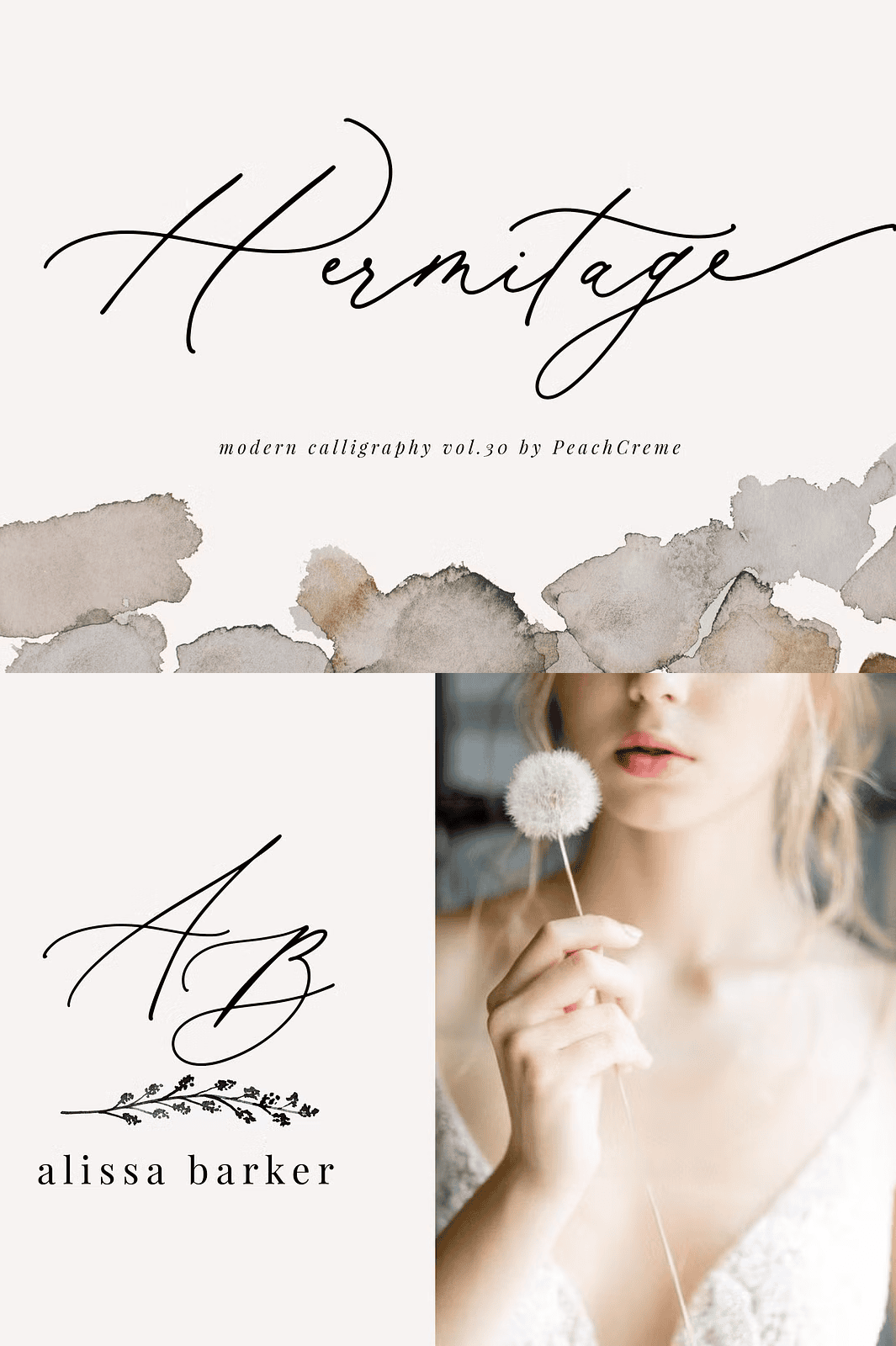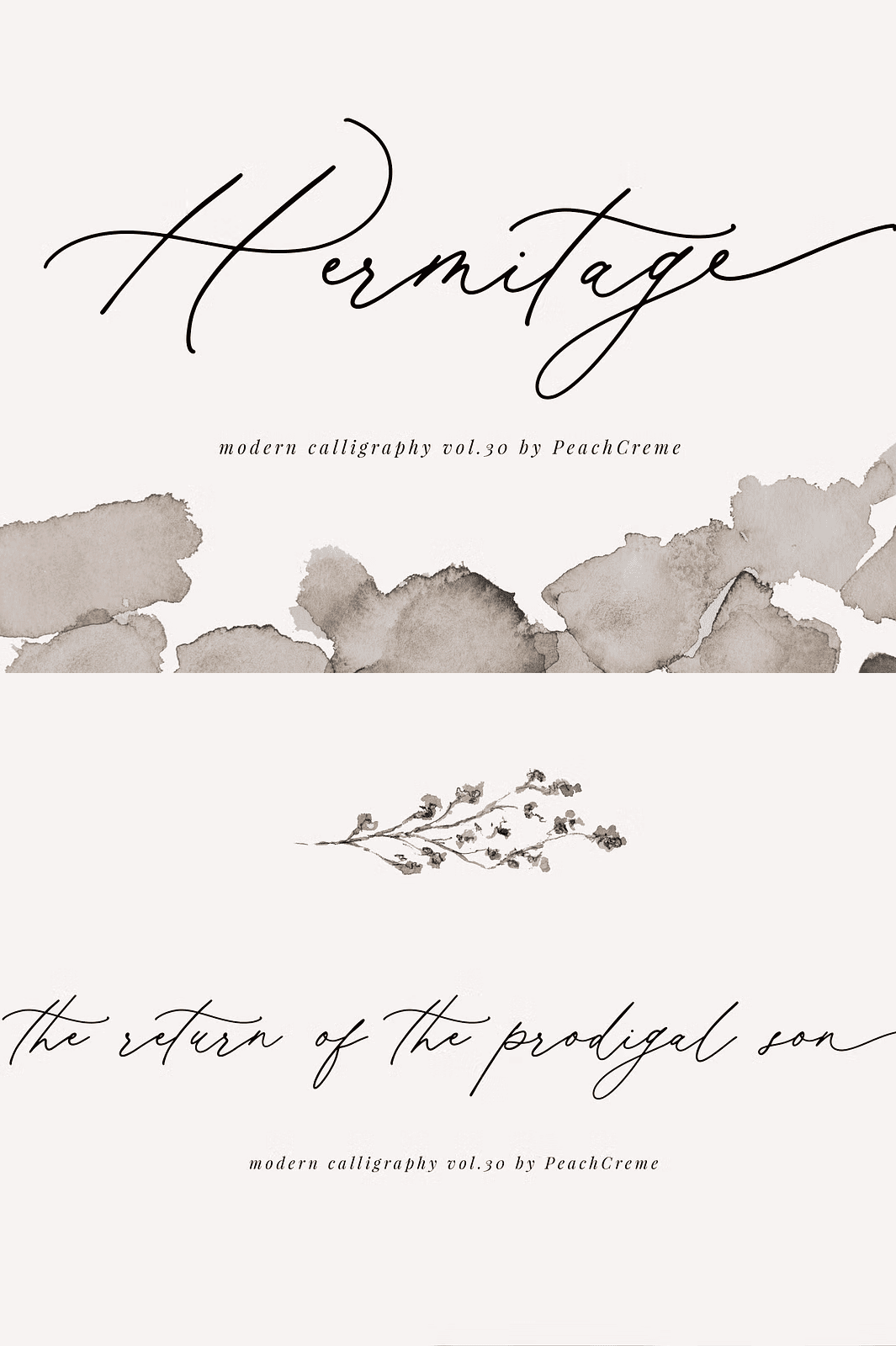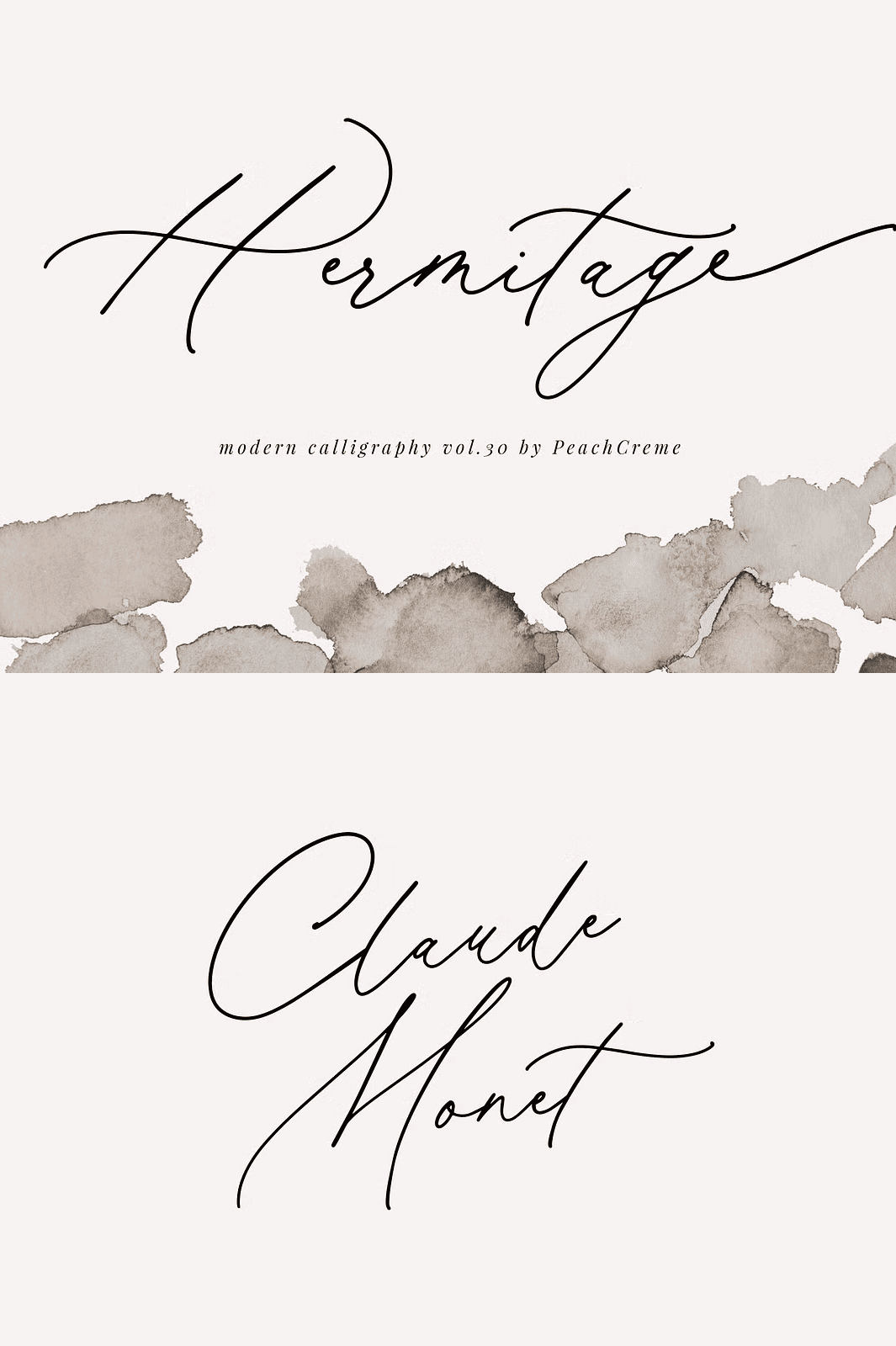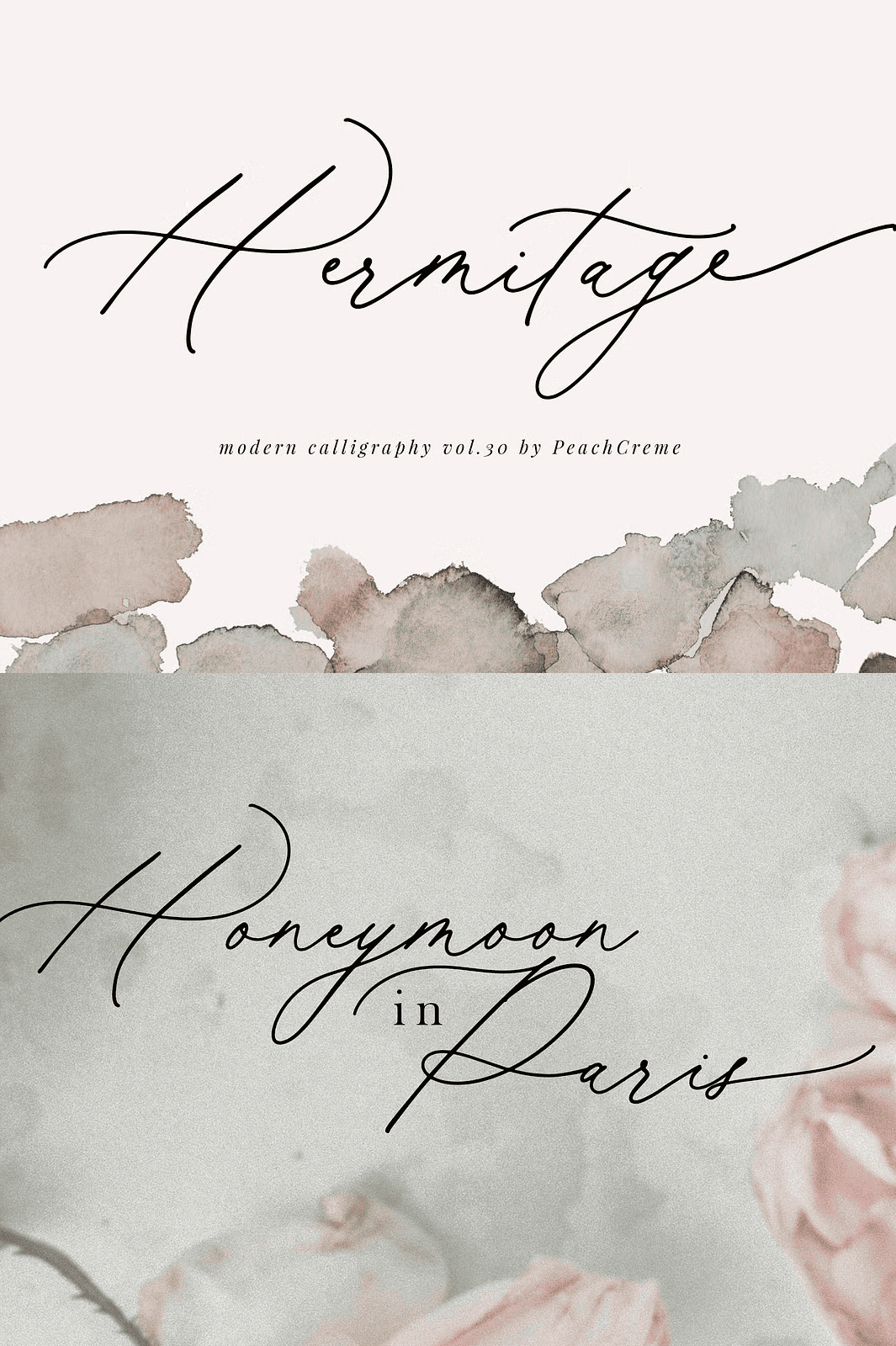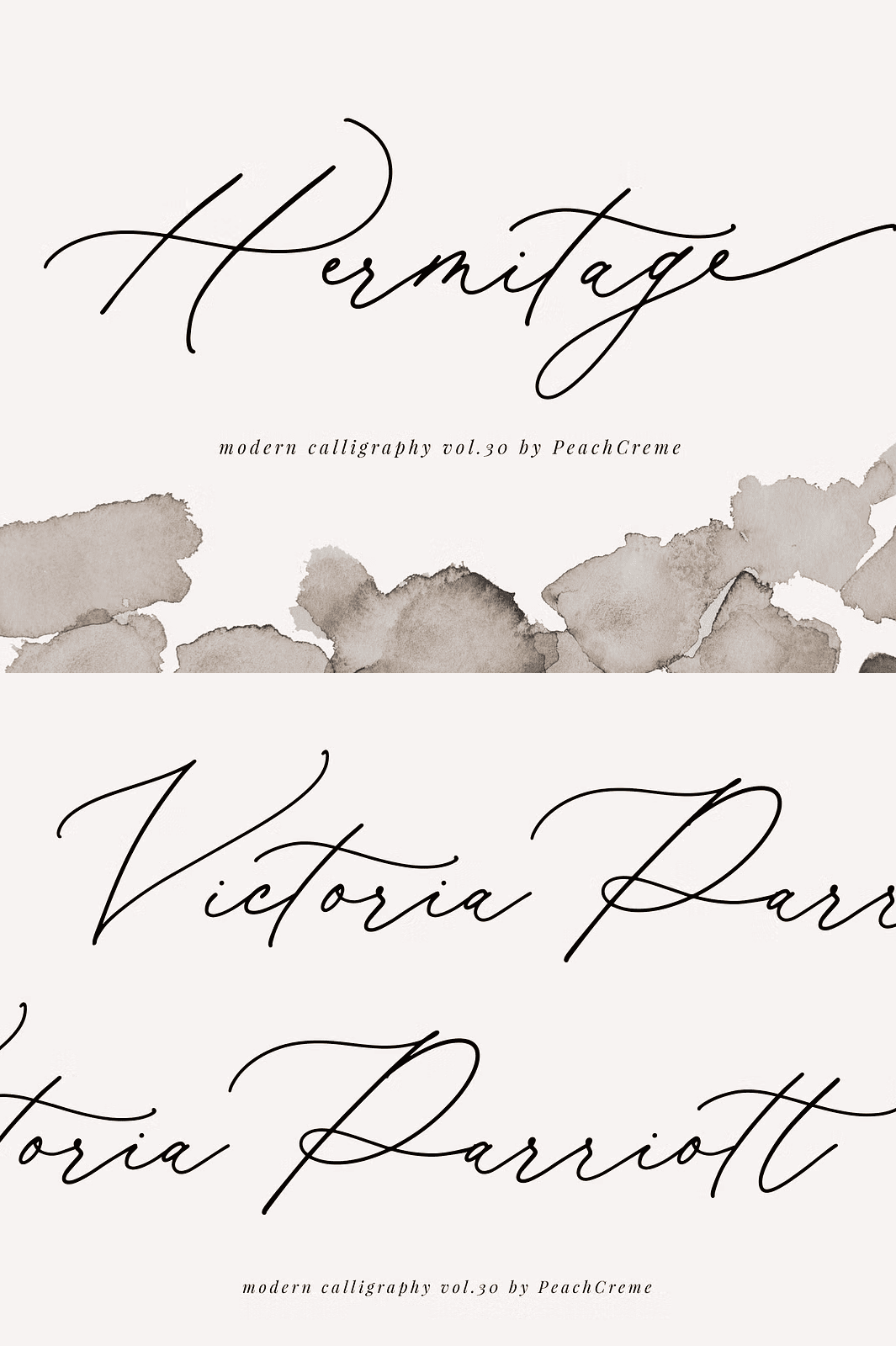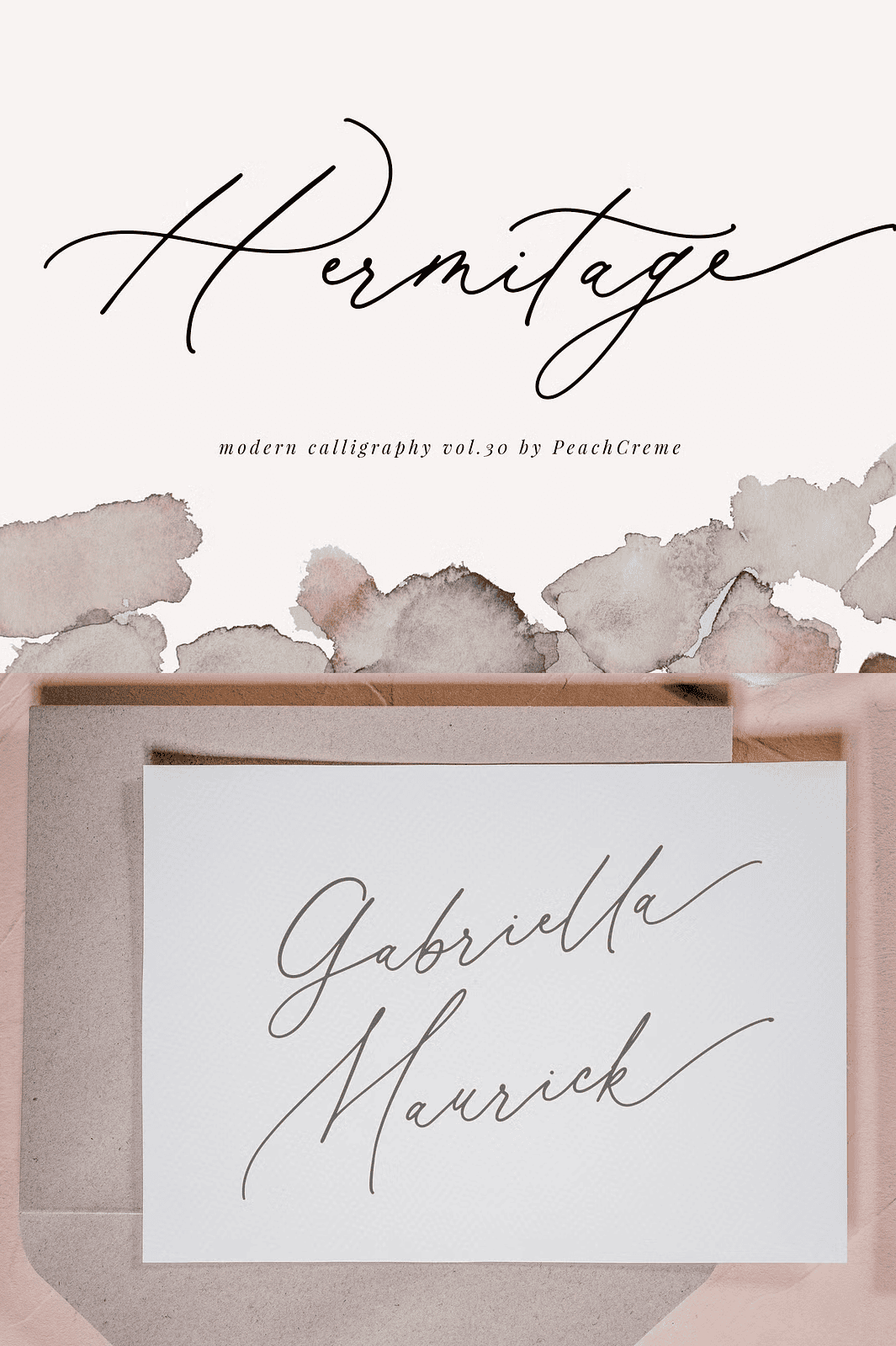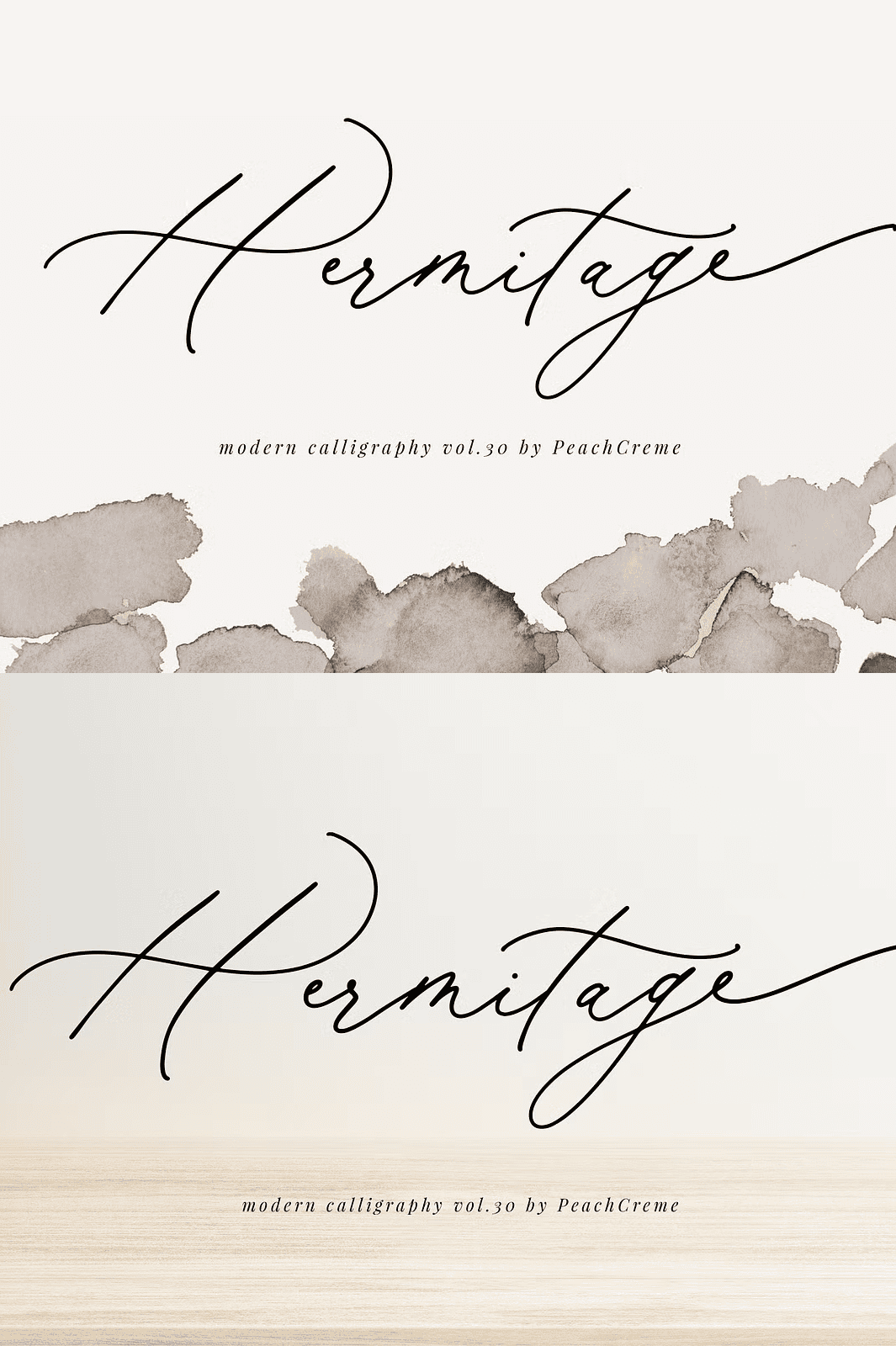
Hermitage Modern Calligraphy Font
Introducing Hermitage—Where Sophistication Meets Seamless Craftsmanship
Step into the world of refined visual storytelling with **Hermitage**, a chic modern calligraphy font that redefines elegance in typography. Designed for creators who value precision, grace, and expressive detail, Hermitage delivers a seamless blend of fluid motion and structural harmony. With a full set of uppercase and lowercase letters, extensive multilingual symbols, numerals, punctuation, and beautifully crafted lowercase swashes, this font is engineered to inspire creativity across every project.
Whether you’re crafting luxury branding, high-end packaging, wedding invitations, or editorial designs, Hermitage adds a touch of quiet luxury that speaks volumes.
Smooth Texture, Bold Confidence—Built for Every Technique
Hermitage features a **smooth, tactile texture** that performs flawlessly across diverse printing and production methods. This isn’t just a digital font—it’s a versatile design tool ready for real-world application. Use it confidently for:
– High-quality print projects
– Hand embroidery with precise digitization
– Laser cutting and die-stamping
– Gold leaf and foil stamping for premium finishes
The clean, consistent stroke width ensures sharp, professional results, no matter the medium.
This level of control lets you tailor every word to match your creative vision—no two designs will look exactly alike.
Why Designers Choose Hermitage for Premium Projects
Exquisite Aesthetic: Delicate yet bold, modern yet timeless.
Rich Character Set: Full coverage of multilingual support and punctuation.
Technical Perfection: Smooth curves and consistent stroke balance.
Professional-Grade Output: Optimized for printing, digitization, and digital use.